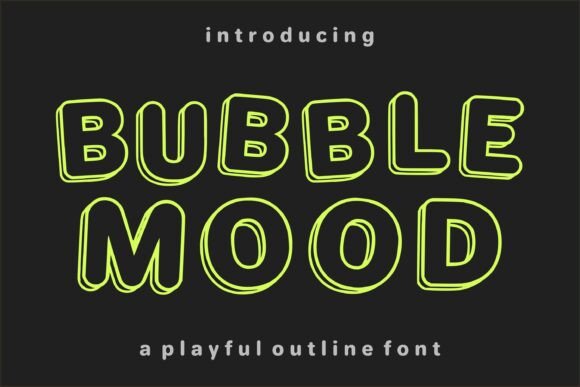
Bubble Mood Font: Adding a Playful Touch to Your Designs
I’ll never forget the time I was working on a project for a kids’ birthday party, and I just couldn’t find the right font to match the playful vibe I was going for. The client wanted something fun, modern, and youthful, but everything I tried seemed either too boring or too over-the-top. That’s when I stumbled upon the Bubble Mood font, and it instantly brought the design to life! In this article, I’ll share my experience with this delightful font, its features, and how you can use it to add a cheerful touch to your creations.
What is Bubble Mood Font?
Bubble Mood is a playful and eye-catching outline font designed to bring joy and creativity into your designs. Featuring rounded, soft bubble shapes with a clean outline style, this font is perfect for fun, modern, and youthful projects. Its bold yet friendly appearance makes it highly versatile for both digital and print use.
Perfect Use Cases for Bubble Mood
This font is ideal for a variety of projects, including:
• Kids-themed designs
• Posters & banners
• T-shirt designs
• Packaging
• Stickers & labels
• Social media graphics
• Branding & logos
Here’s what I love about Bubble Mood:
• ✨ Playful and fun: The bubble shapes give it a unique and lively feel that’s perfect for kids’ projects or any design that needs a cheerful touch.
• ✅ Versatile: It works well for both digital and print use, making it a great addition to your font library.
• ✅ Easy to read: Despite its playful nature, the font remains clear and easy to read, even in smaller sizes.
A few things to keep in mind:
• ⚠️ Legibility at small sizes: While generally easy to read, some of the bubble details might get lost at very small sizes.
• 🤔 Pairing with other fonts: Because of its bold style, you’ll want to pair Bubble Mood with a font that provides good contrast to avoid visual overload.
Bubble Mood was inspired by the joy of childhood and the simplicity of bubble shapes. The designer aimed to create a font that would bring a smile to users’ faces while offering a versatile tool for various projects. The result is a font that’s both fun and functional.
Is Bubble Mood suitable for professional branding? Yes, its friendly and approachable style works well for modern brands looking to connect with a younger audience.
Does Bubble Mood support OpenType features? Yes, it offers access to OpenType features, glyphs, and stylistic alternates for more creative freedom.
Is Bubble Mood easy to read? Generally, yes. However, at very small sizes, some details may be less clear.
Add a cheerful and playful touch to your creations with Bubble Mood! Its unique bubble shapes and clean outline style make it a standout choice for fun, modern, and youthful projects.